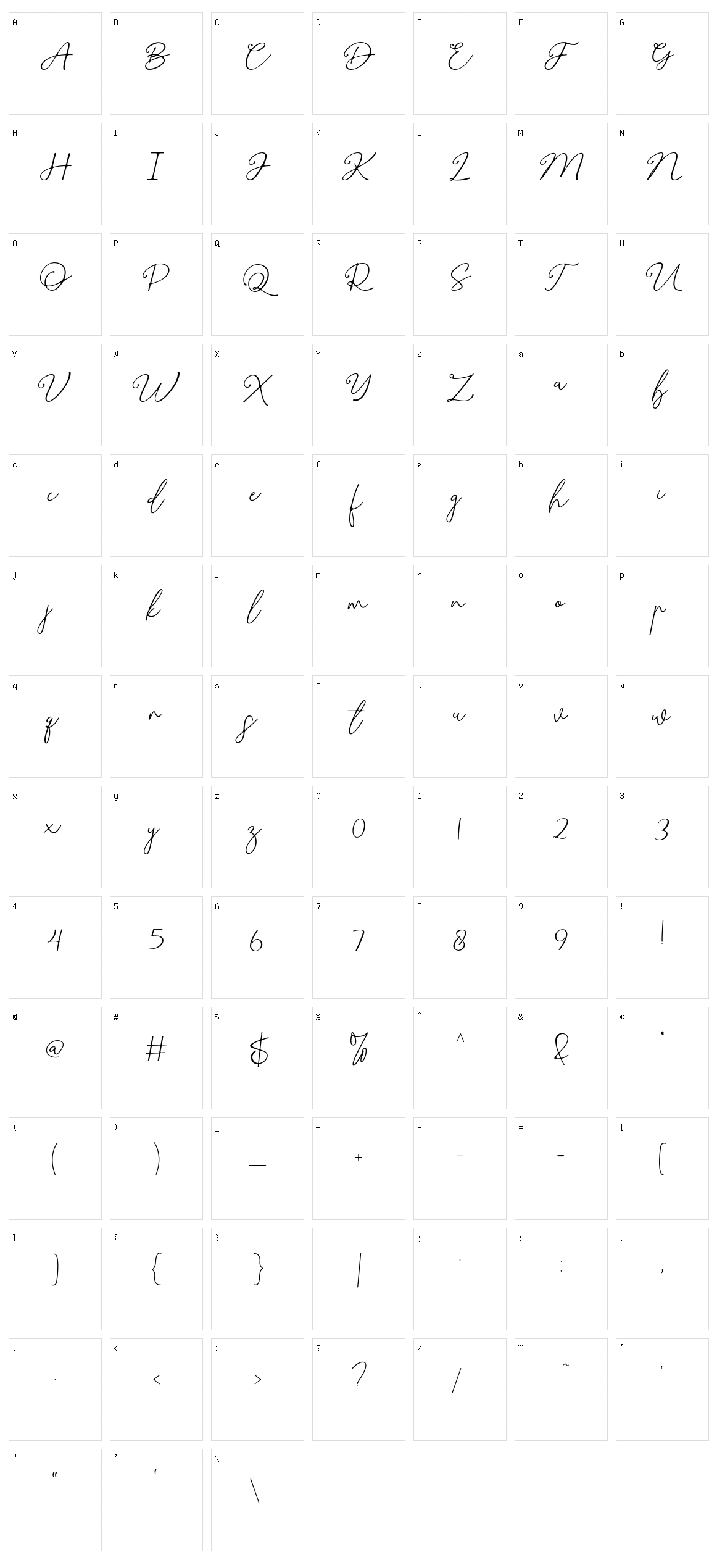
The free font Spring Beauty is carefully designed by Vz Type, showcasing a thoughtful balance of creativity and usability and falls under the Script font style. When you download the ZIP file, it contains only 239.16 KB of font files, making it lightweight and quick to download. Please review the license details below to understand permitted usage and distribution rights. If license information is not available, we recommend using this font for personal projects only or contacting the author directly for commercial usage permissions.